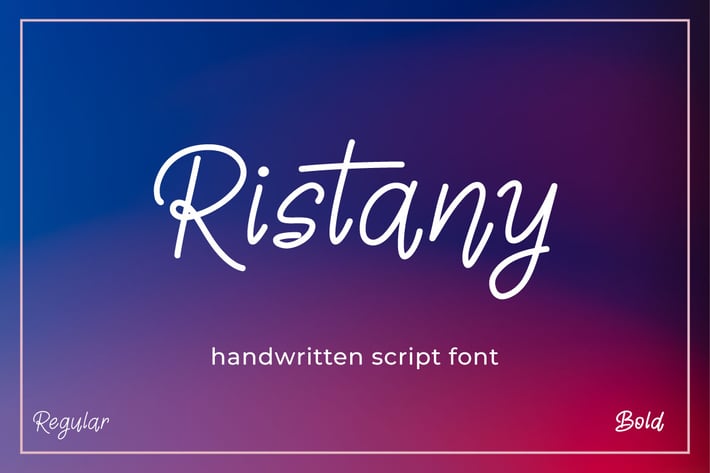
Ristany - Handwriten Script Font
Hello! Ristany is a simple handwritten font.
Ristany can be used in any works such as flyer, book title, advertisement, social media content, logo and many more.